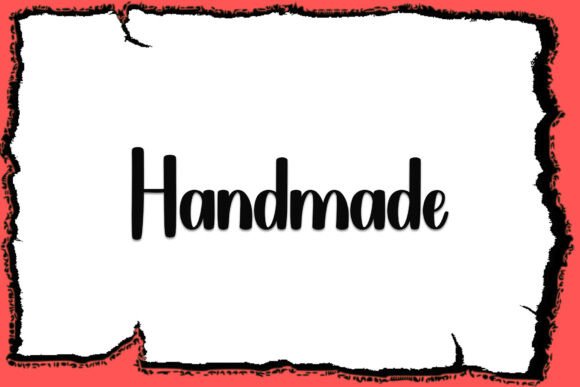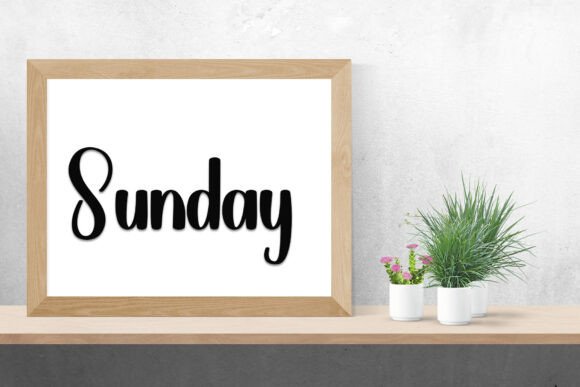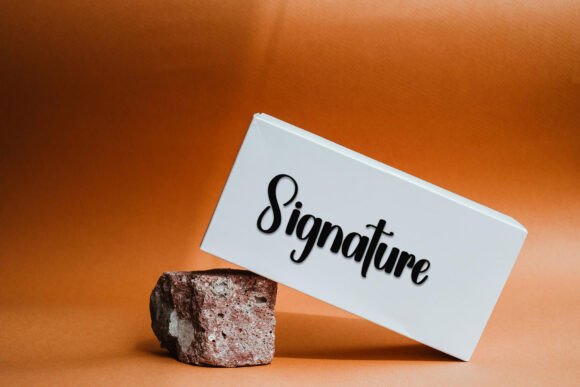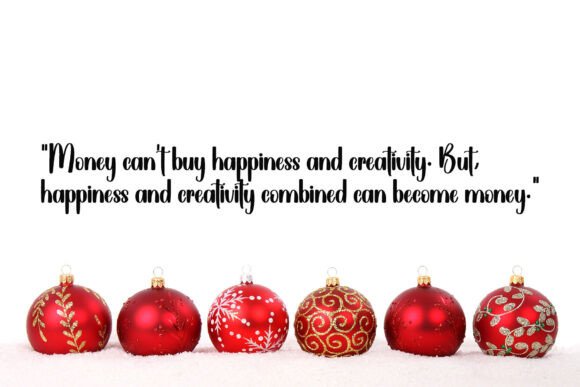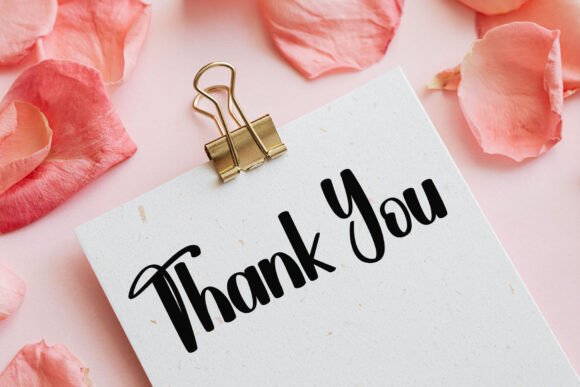
Biscuits Font: Unleash Your Creativity with this Bold and Expressive Handwritten Font
Are you tired of using the same old fonts for your designs? Look no further than Biscuits Font, a bold and expressive handwritten font that’s perfect for adding a touch of playful energy and urban edge to your projects. With its thick, lively strokes and casual brush texture, this font is sure to grab attention and make a lasting impression.
What is Biscuits Font?
Biscuits Font, also known as Hello Boy, is a unique and versatile font that’s designed to help you create attention-grabbing designs. Its bold and expressive style makes it perfect for a wide range of applications, from posters and merchandise to social media graphics and street-style branding.
Key Features of Biscuits Font
- Bold and Expressive Style: Biscuits Font features thick, lively strokes that give it a bold and expressive look.
- Handwritten Texture: The font has a casual brush texture that gives it a handwritten feel.
- Multiple Styles: Biscuits Font comes in three different styles: regular, shadow, and outline.
- Urban Edge: The font has an urban edge that’s perfect for street-style branding and designs.
Uses of Biscuits Font
Biscuits Font is a versatile font that can be used for a wide range of design projects, including:
- Posters: Create eye-catching posters with Biscuits Font that grab attention and convey your message.
- Merchandise: Use Biscuits Font to create unique and stylish merchandise, such as t-shirts, hats, and bags.
- Social Media Graphics: Add a touch of personality to your social media graphics with Biscuits Font.
- Street-Style Branding: Use Biscuits Font to create bold and eye-catching branding for your street-style business.
Benefits of Using Biscuits Font
There are many benefits to using Biscuits Font for your design projects, including:
- Unique Style: Biscuits Font has a unique and bold style that sets it apart from other fonts.
- Attention-Grabbing: The font is designed to grab attention and make a lasting impression.
- Versatile: Biscuits Font can be used for a wide range of design projects.
- Easily Readable: Despite its bold style, Biscuits Font is easily readable, making it perfect for use in a variety of contexts.
Tips for Using Biscuits Font
Here are some tips for getting the most out of Biscuits Font:
- Use it Boldly: Biscuits Font is designed to be used boldly, so don’t be afraid to experiment with different sizes and styles.
- Mix and Match Styles: Try mixing and matching the regular, shadow, and outline styles to create unique and eye-catching designs.
- Experiment with Colors: Biscuits Font looks great in a variety of colors, so don’t be afraid to experiment and find the perfect color for your design.
Biscuits Font is a bold and expressive handwritten font that’s perfect for designers and crafters looking to add a touch of playful energy and urban edge to their projects. With its thick, lively strokes and casual brush texture, this font is sure to grab attention and make a lasting impression. Whether you’re creating posters, merchandise, social media graphics, or street-style branding, Biscuits Font is a versatile and attention-grabbing choice that’s sure to help you unleash your creativity.